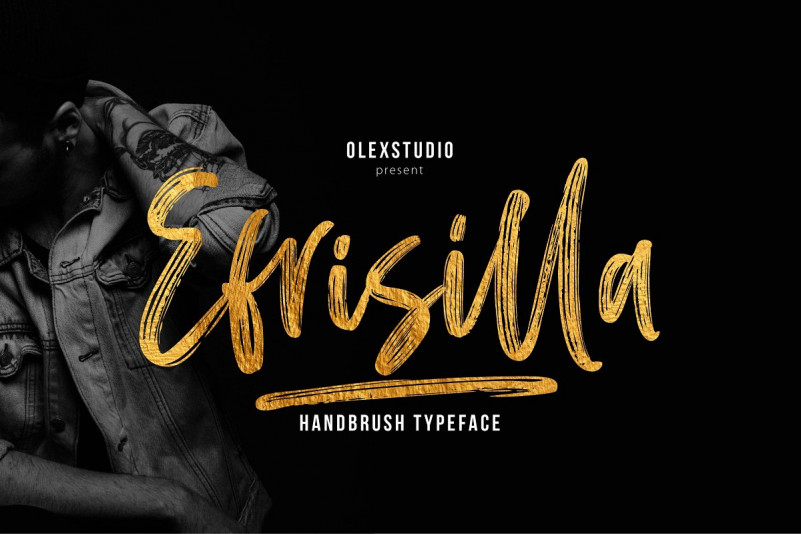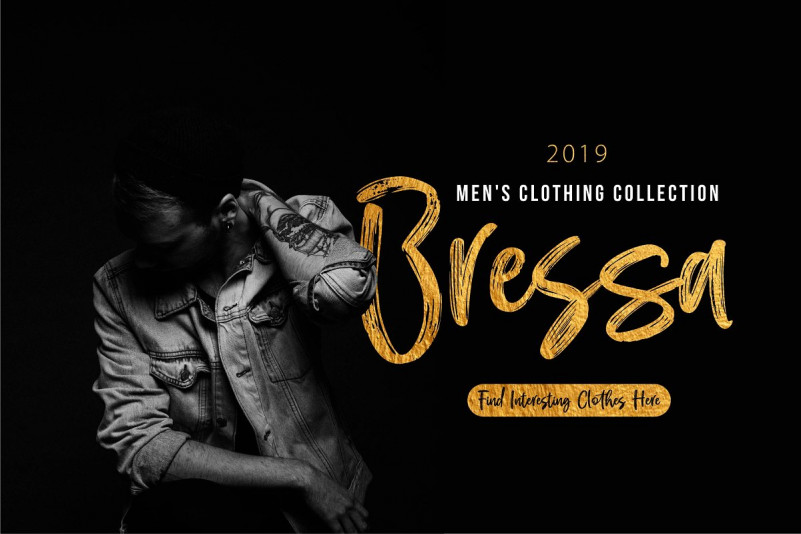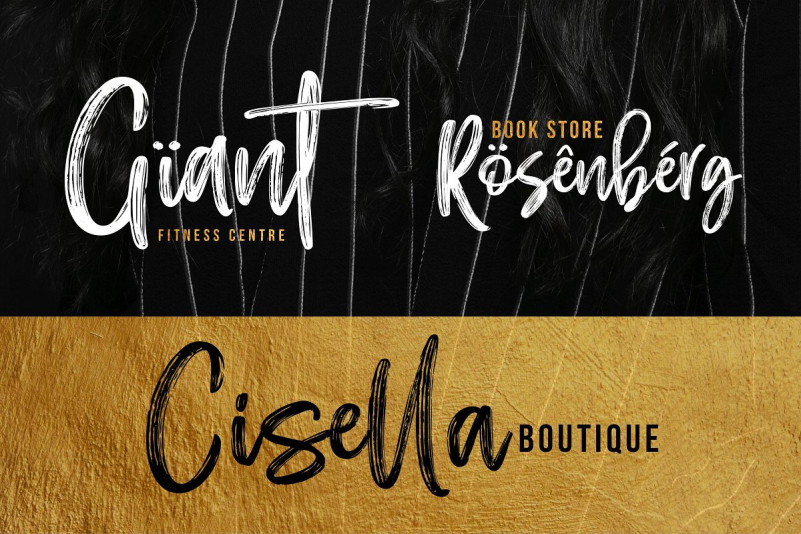
EFRISILLA Font
EFRISILLA is a beautiful Handbrush Script font, This Font will look gorgeous on all your designs, invitation, book, branding materials, logo’s, t-shirt, poster and all project design other.